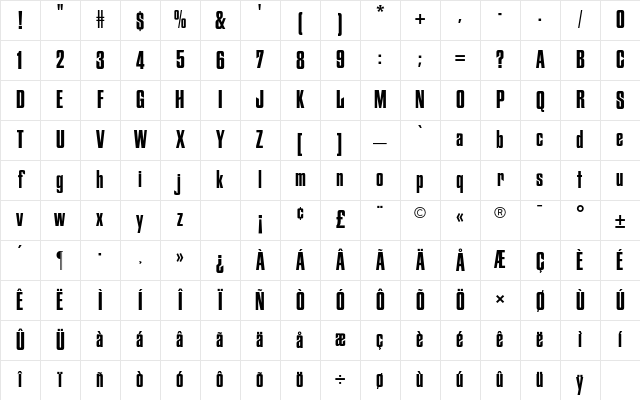
Fiorello CG Condensed Regular
Design Context for Fiorello CG Condensed
Fiorello CG Condensed is a composed and adaptable typeface that performs quietly and consistently across a wide range of design contexts. Its narrow stance lets it pack a punch even in space-constrained designs.